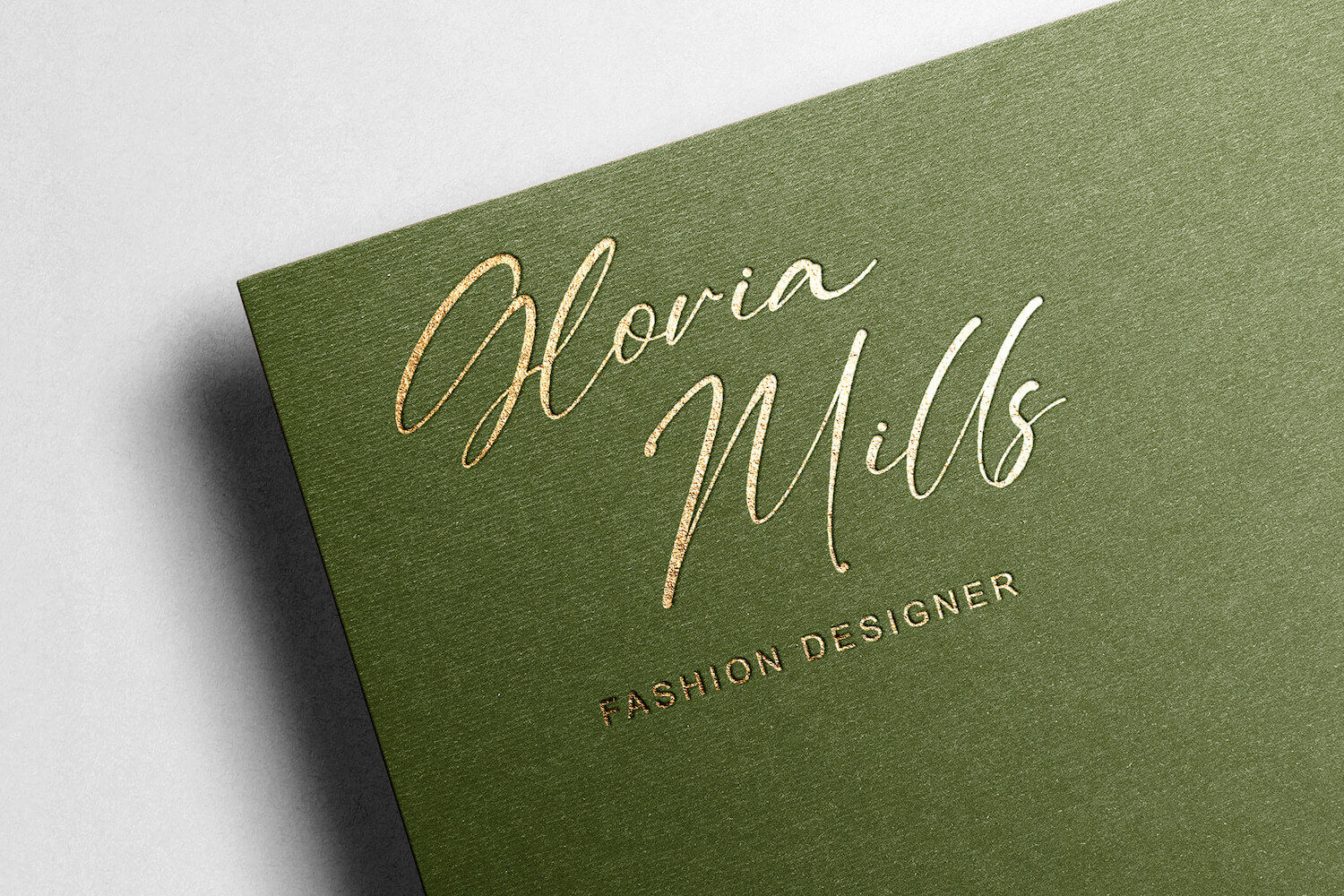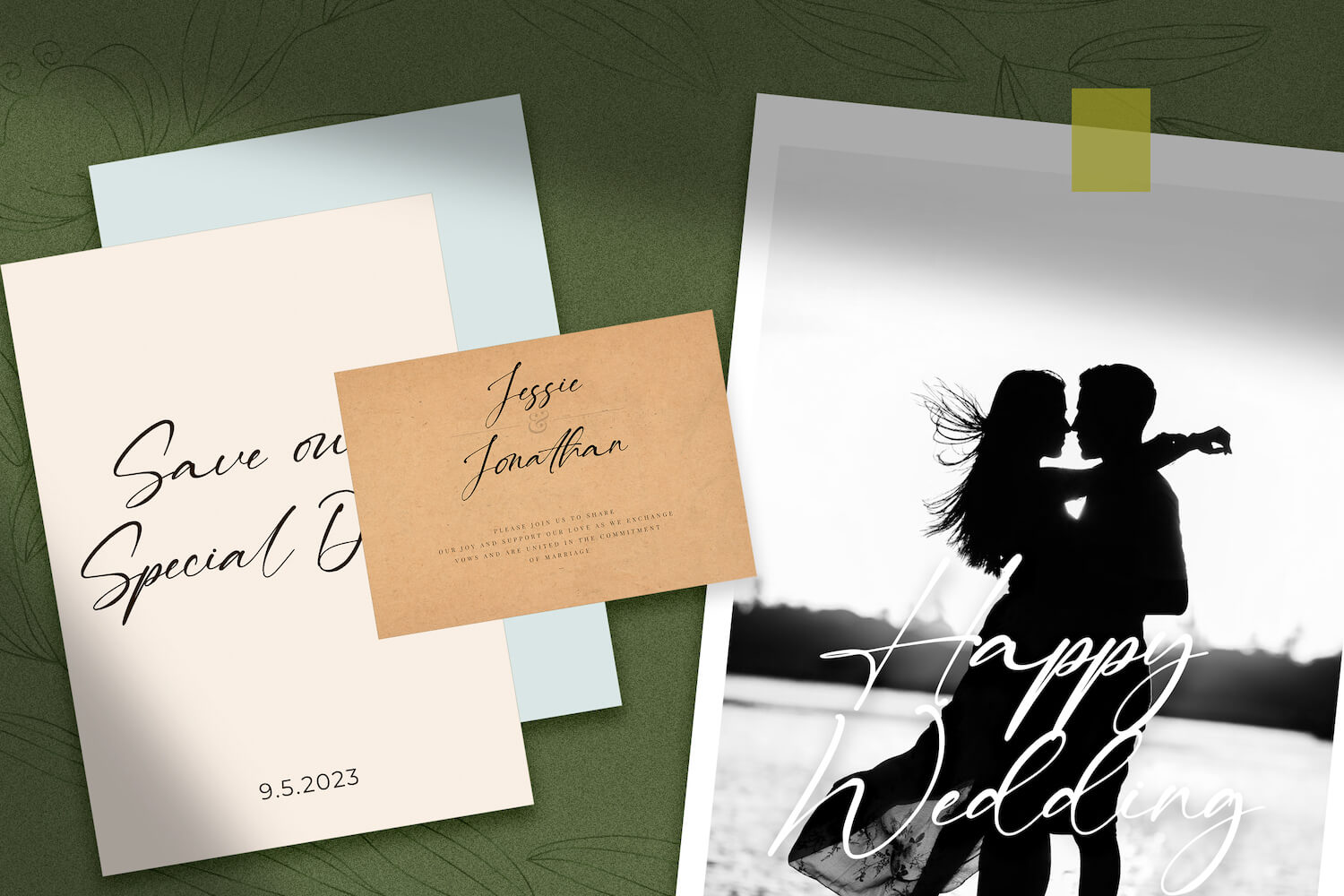
Tindak Pundi Signature Script Font brings a graceful, handwritten elegance to modern design projects. With its slender strokes, flowing ligatures, and stylish curves, this script font mimics the authenticity of a hand-signed note—sophisticated yet effortlessly personal. Tindak Pundi is especially well-suited for branding applications that require a soft but refined touch, such as fashion logos, signature-style business cards, or artisan packaging.
The font’s subtle contrast and balanced spacing make it visually pleasing even at small sizes, while its fluid connections give it a natural rhythm that works beautifully across longer text. Tindak Pundi Signature Script Font also includes alternate glyphs and ligatures to enhance versatility, allowing designers to create unique layouts that feel custom-crafted. Whether you’re designing a perfume label, a wedding invitation, or a photography watermark, Tindak Pundi adds a touch of understated charm and elegance to every composition.